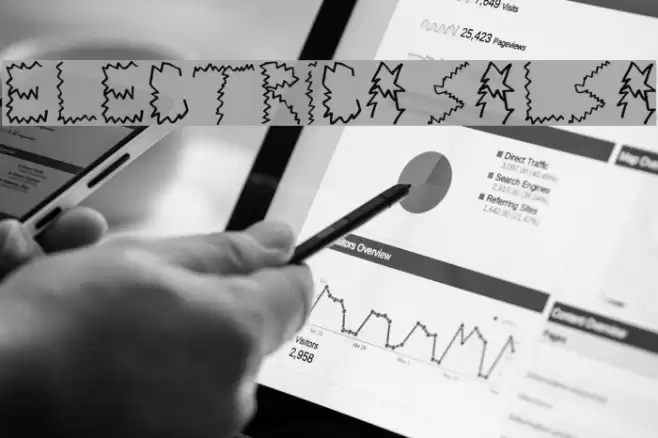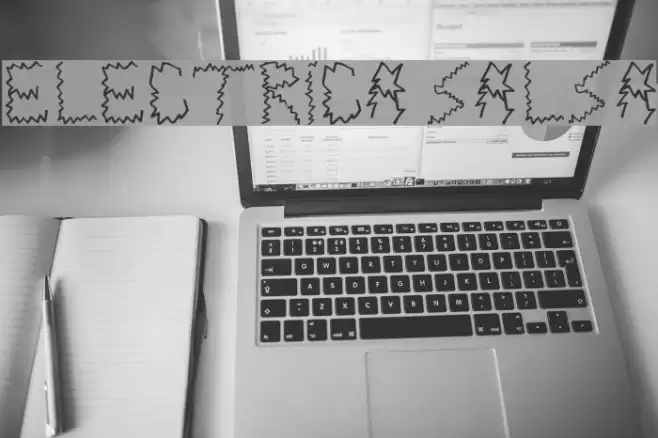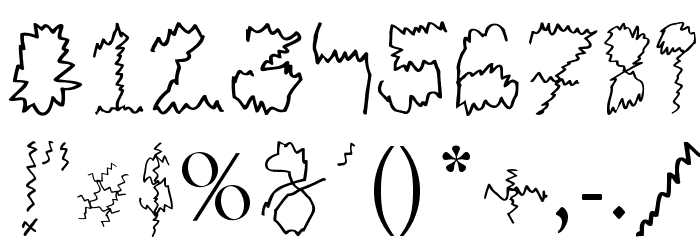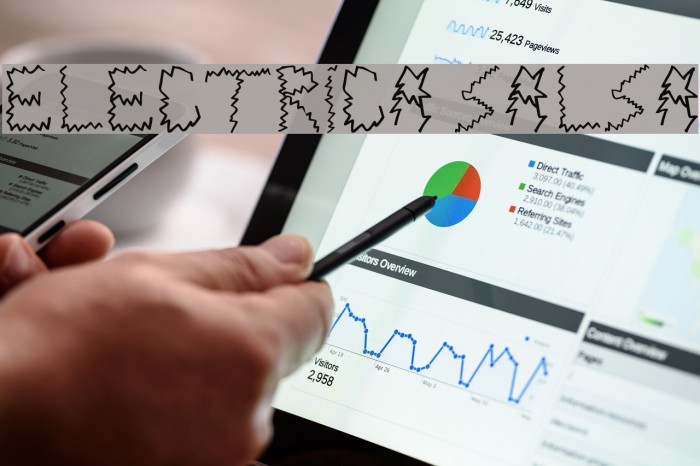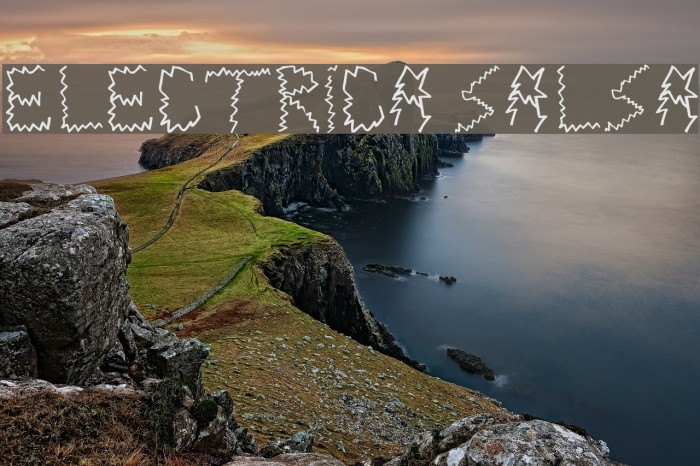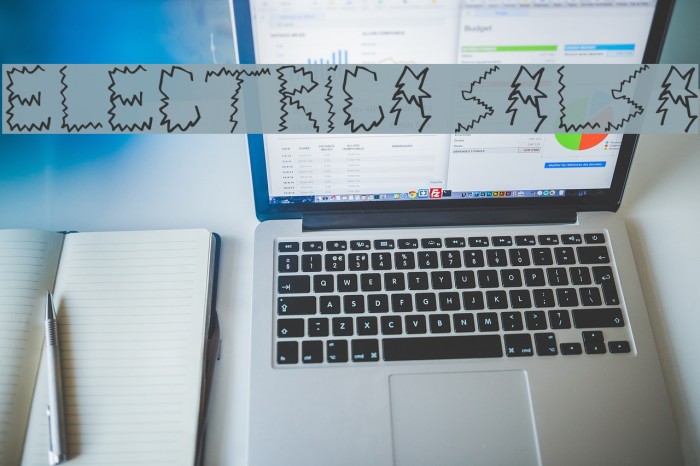
Electrica Salsa Font
Electrica Salsa Description
This font features a dynamic, electrifying design with jagged, zigzag lines that mimic the appearance of lightning bolts. The characters are bold and striking, each letter and number crafted to convey a sense of energy and movement. The uppercase and lowercase letters maintain a consistent style, with sharp angles and irregular edges that create a sense of chaos and excitement. The numbers and special characters follow the same aesthetic, making the font cohesive and visually impactful. This font is perfect for projects that require a bold statement and a touch of rebellious flair.
A bold, electrifying font with jagged, lightning-like characters from Cartoon fonts.
- Proposed Projects: Ideal for music festival posters, edgy branding, video game titles, and dynamic event invitations.
- Overall Style: Modern, Energetic